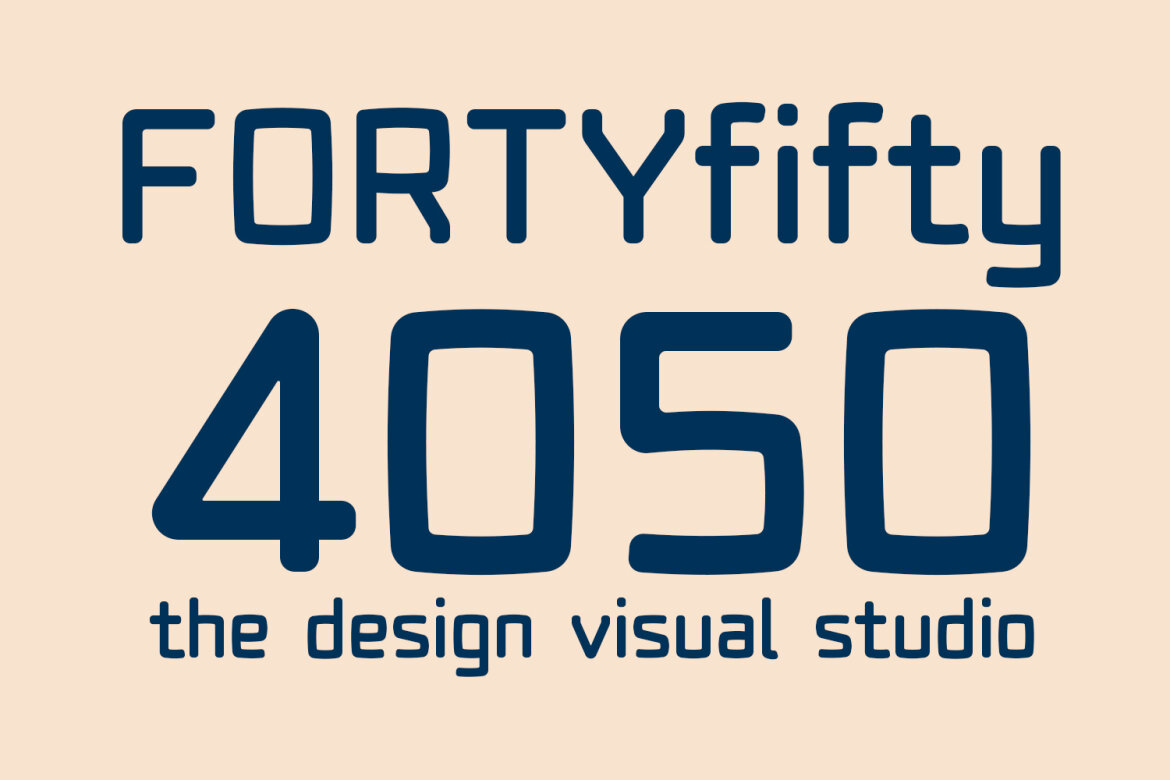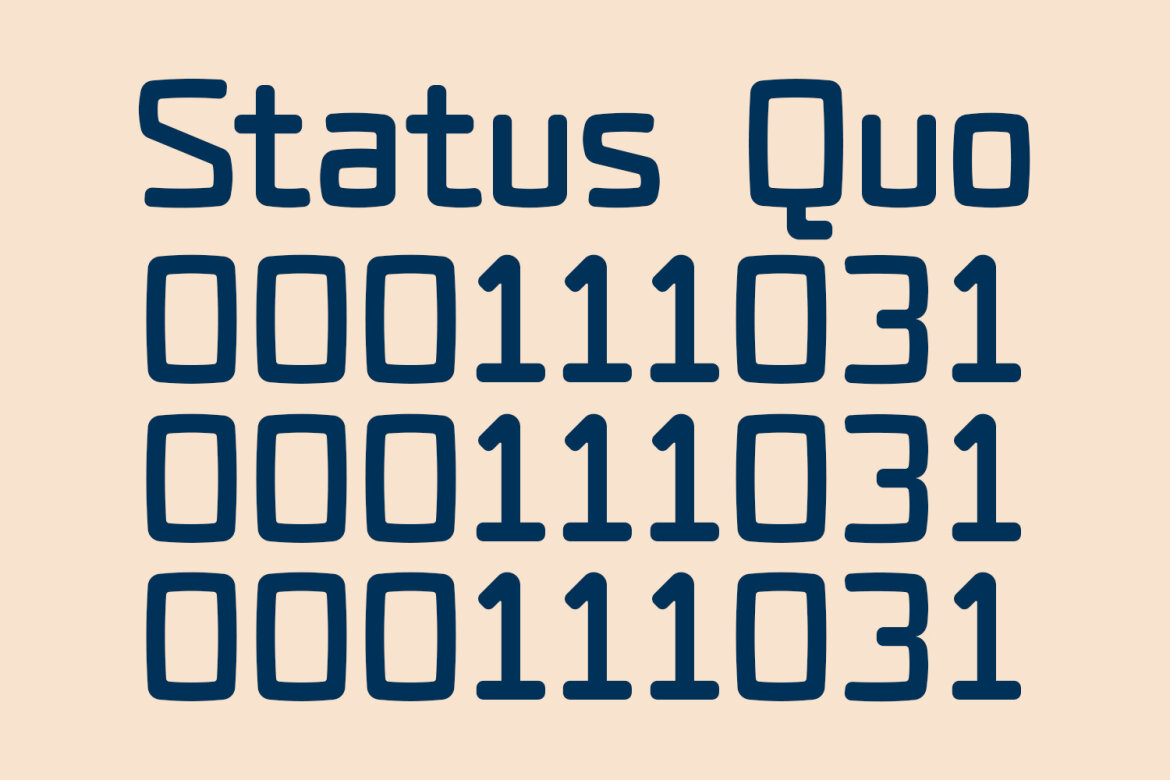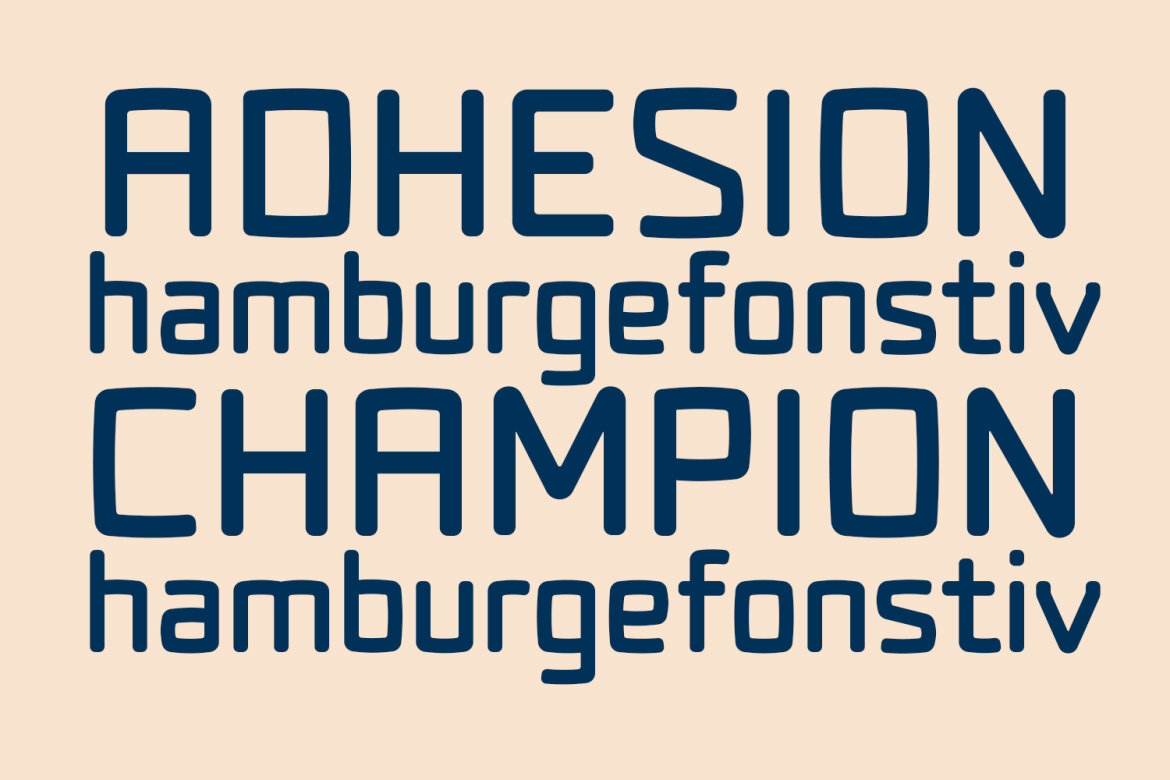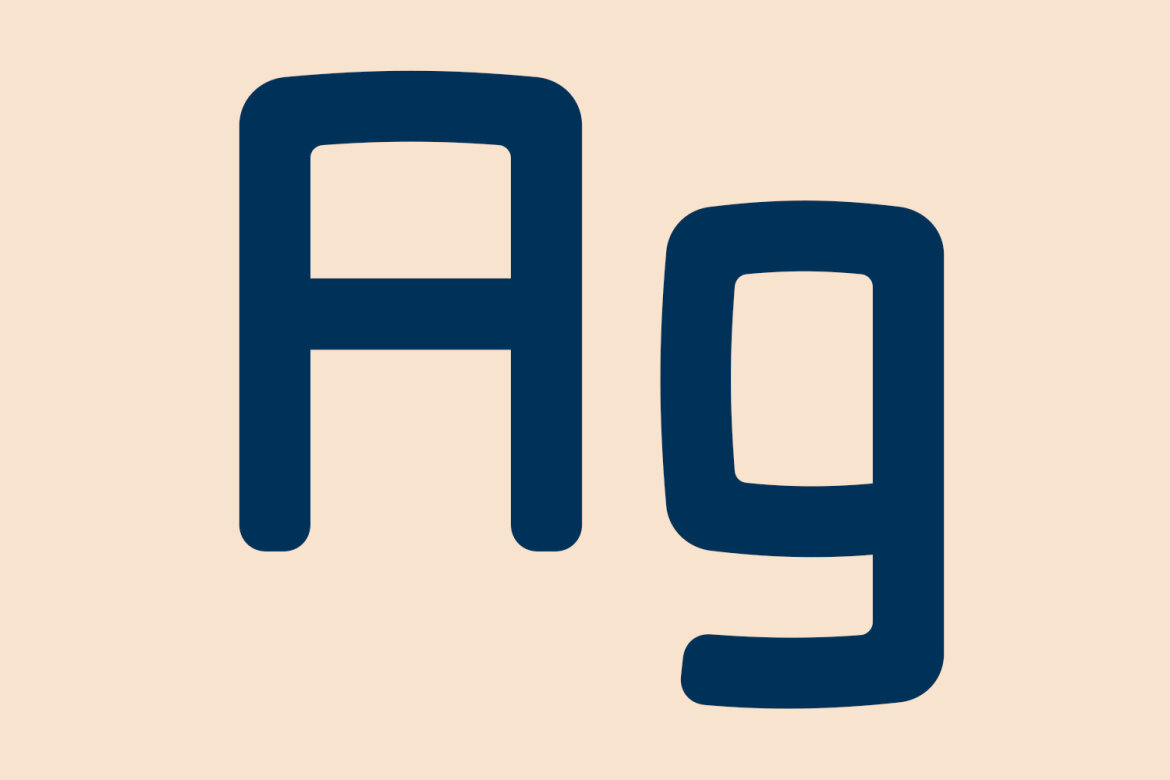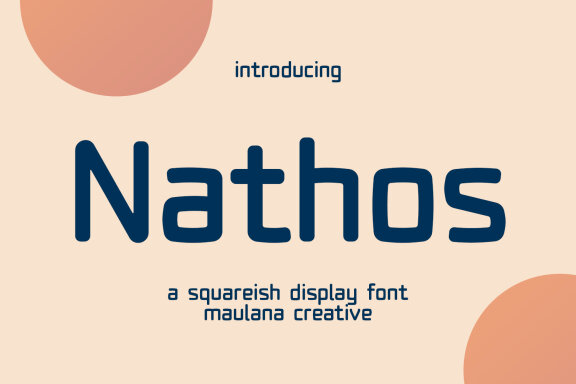
Nathos Squareish FREE Font
Nathos
Nathos is a squareish sans display font.regular stroke, fun character with a bit of ligatures and alternates. To give you an extra creative work. Nathos font support multilingual more than 100+ language. This font is good for logo design, Social media, Movie Titles, Books Titles, a short text even a long text letter and good for your secondary text font with script or serif. Make a stunning work with Nathos font.